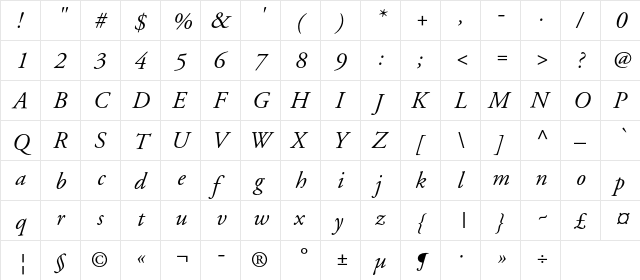
APCGaramondC Italic
Design Context for APCGaramondC Typeface
APCGaramondC is a composed and adaptable typeface that performs quietly and consistently across a wide range of design contexts. Its italic angle brings a sense of urgency and motion to the letterforms.
Pro Tip: Try APCGaramondC for annotation and caption copy alongside an upright companion — the contrast in angle creates a dynamic but ordered typographic system.